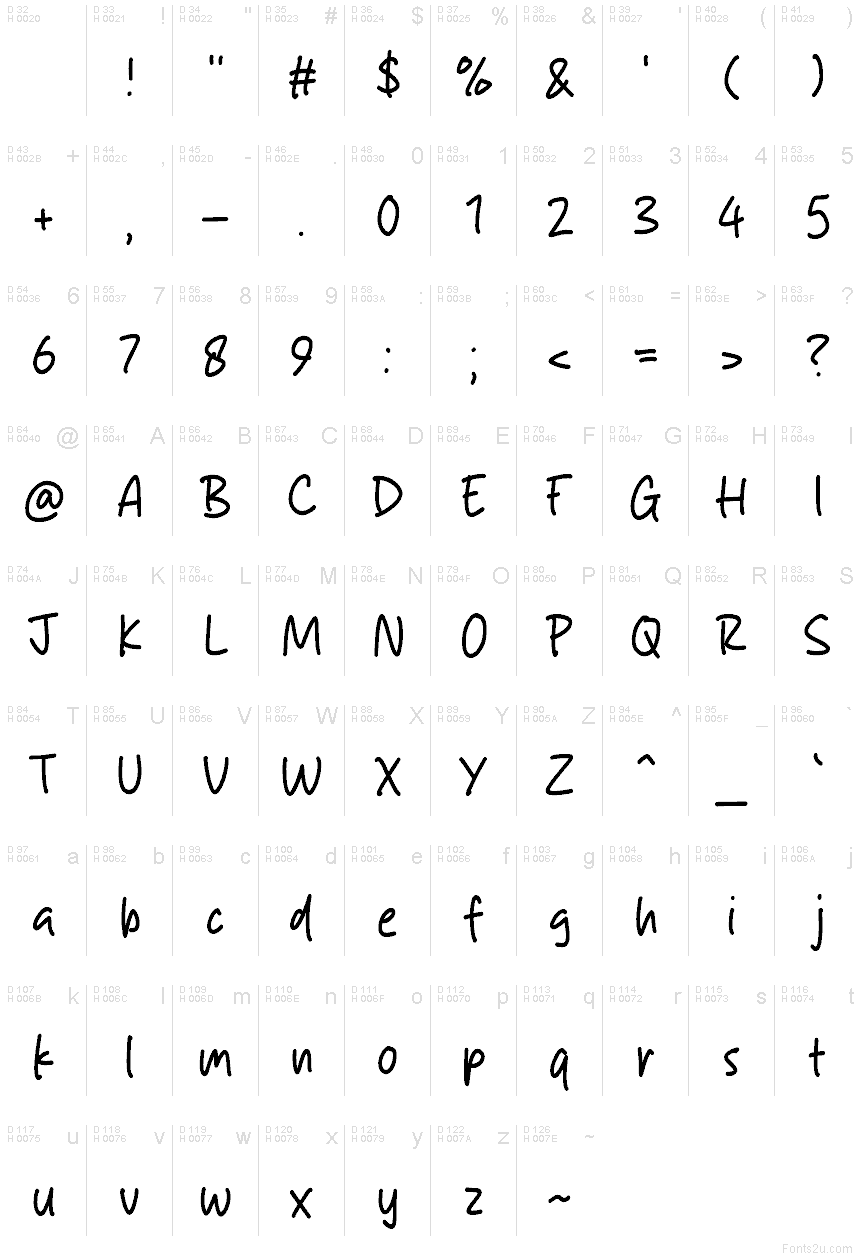
Party Clash
Party Clash font by Origin Type is a free handwritten typeface with a loose, marker-like rhythm that feels like it was dashed off on a party flyer. Letters lean and bounce with just enough irregularity to feel personal, while still staying clean and easy to read. The strokes are inky and confident, giving headlines a casual energy that feels friendly rather than messy.
Using Party Clash, you can give birthday invitations, kids’ event posters, classroom materials, YouTube thumbnails, stickers, and playful branding a relaxed, human touch. This free font shines when set large for titles, then paired with a simple sans serif for body text to keep things clear. It’s a natural fit whenever you want your message to feel hand-written, upbeat, and approachable.